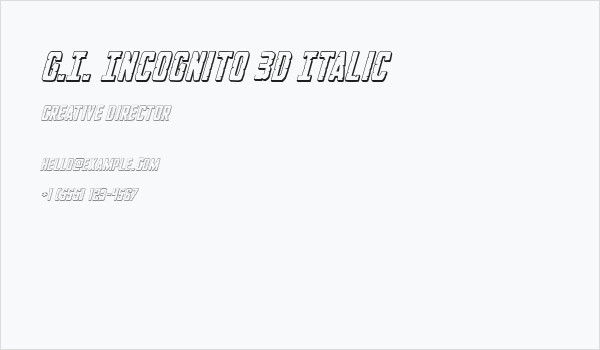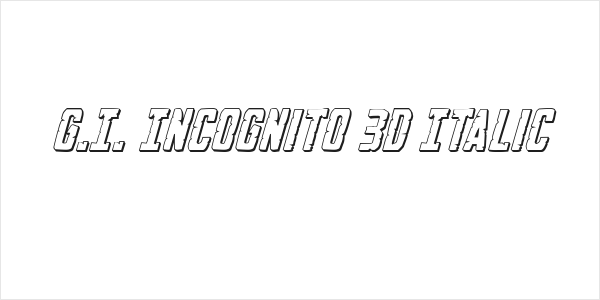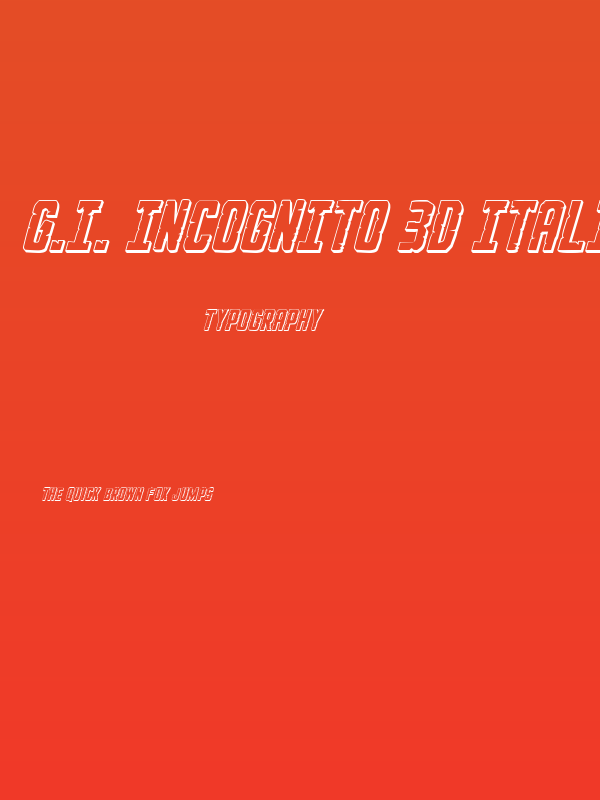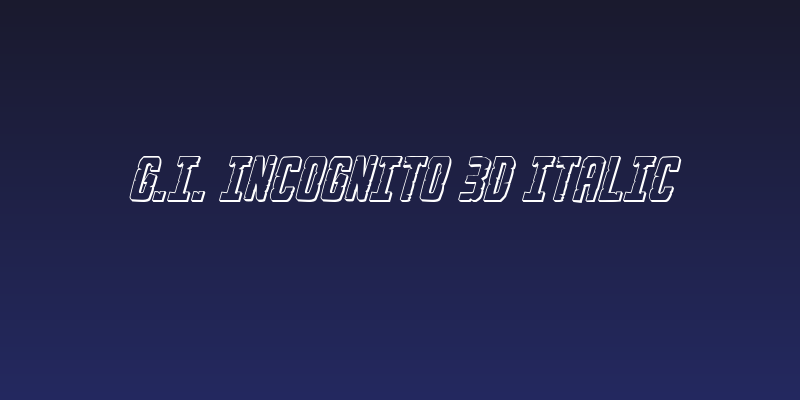
G.I. Incognito 3D Italic Font
G.I. Incognito 3D Italic Description
This font features a bold, 3D italic style with a strong presence. The characters are outlined, giving a shadow effect that enhances the three-dimensional appearance. The uppercase and lowercase letters maintain a consistent slant, adding to the dynamic and energetic feel. The numbers and special characters follow the same design principles, ensuring uniformity across all elements. The font's boldness and unique style make it suitable for eye-catching designs.
| Proposed Projects | Ideal for posters, video game titles, sports branding, and any project requiring a bold, impactful look. |